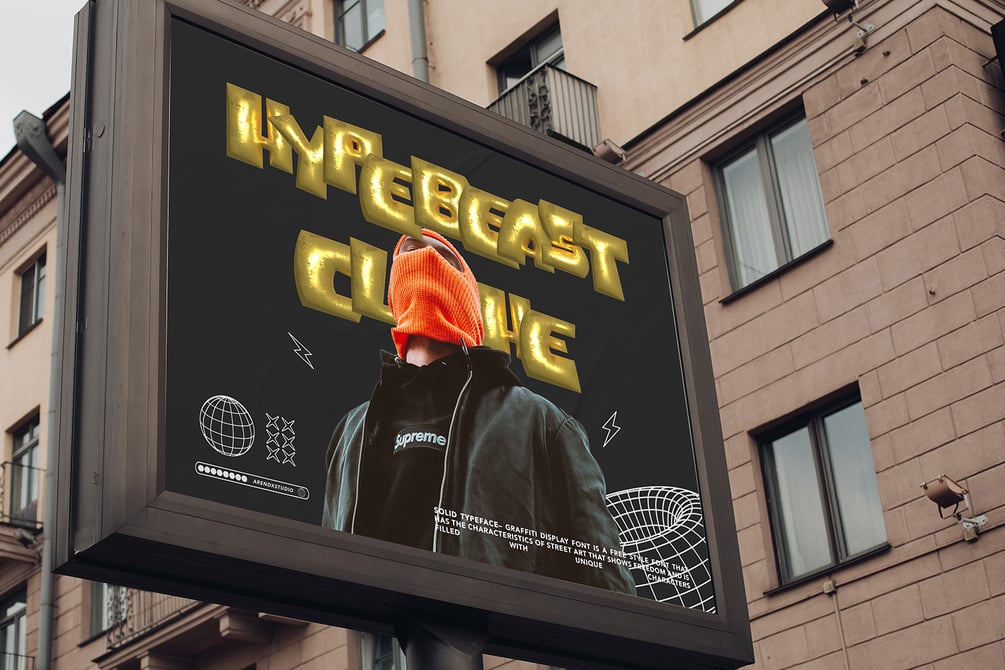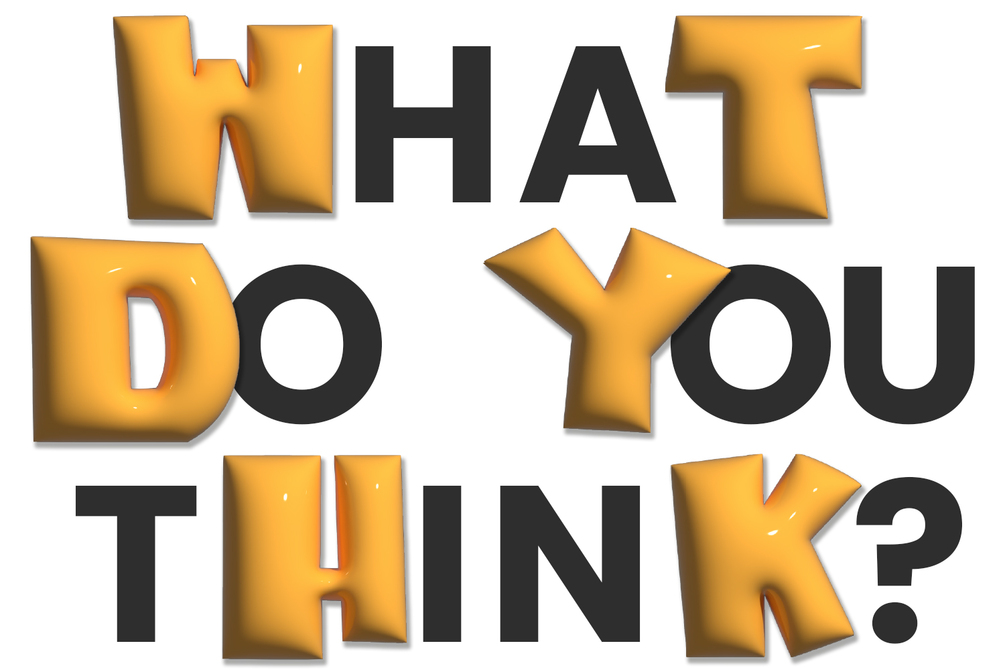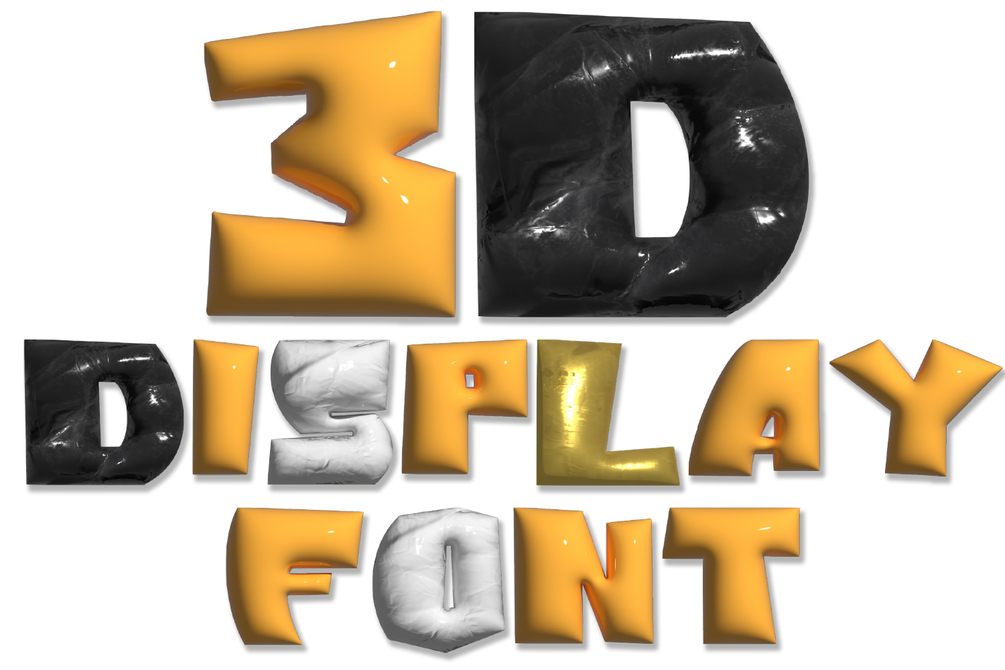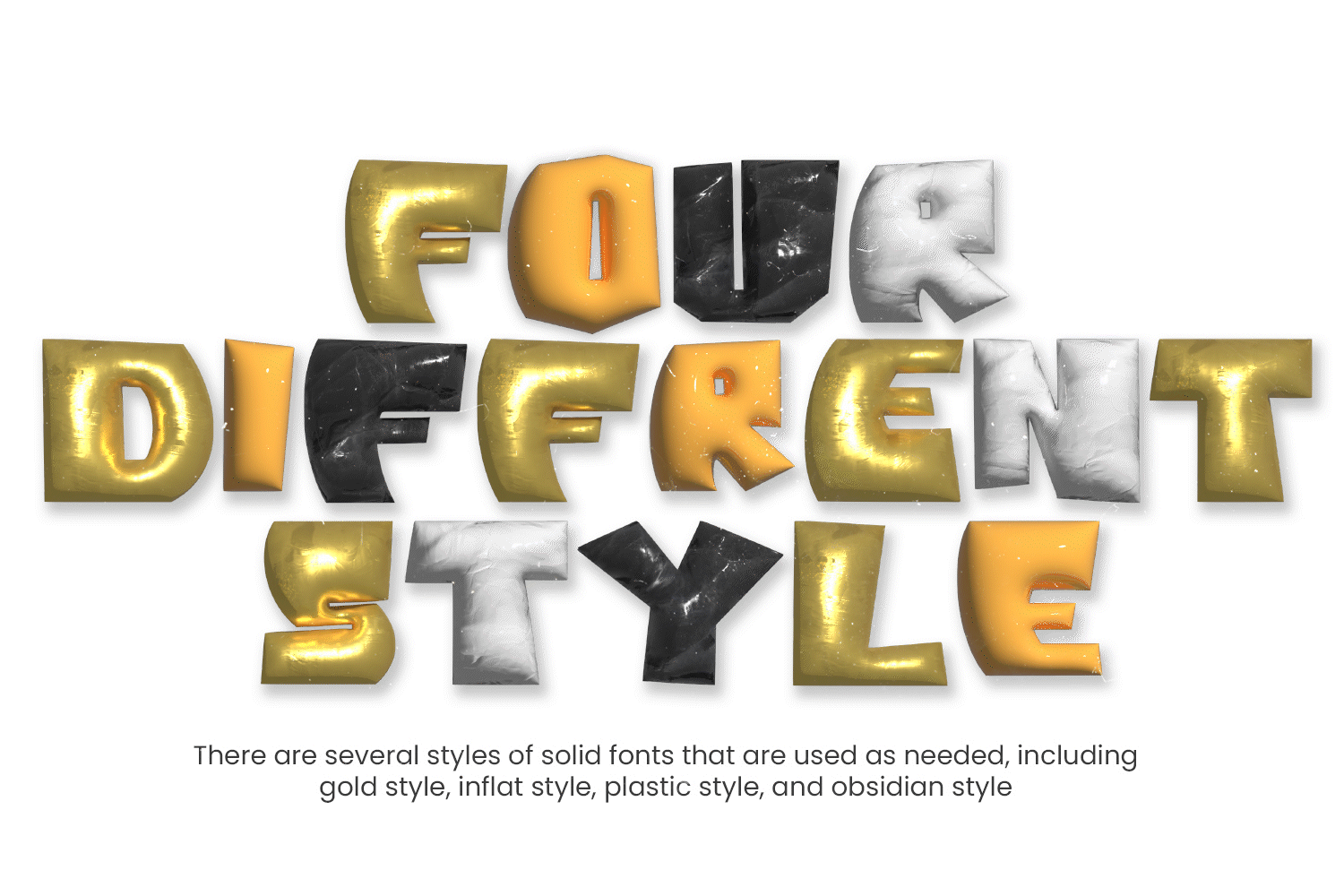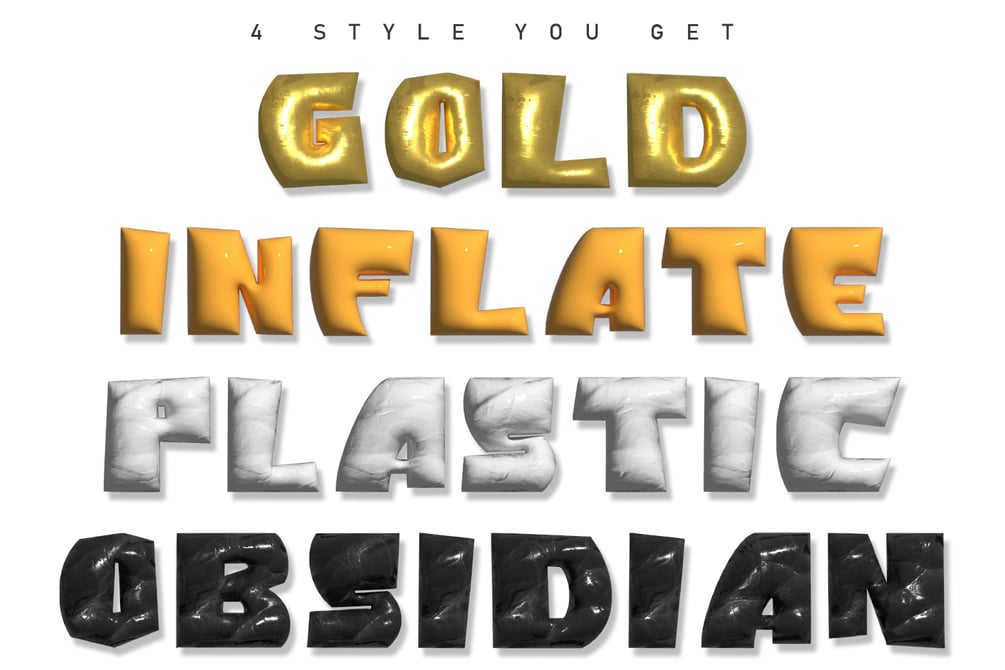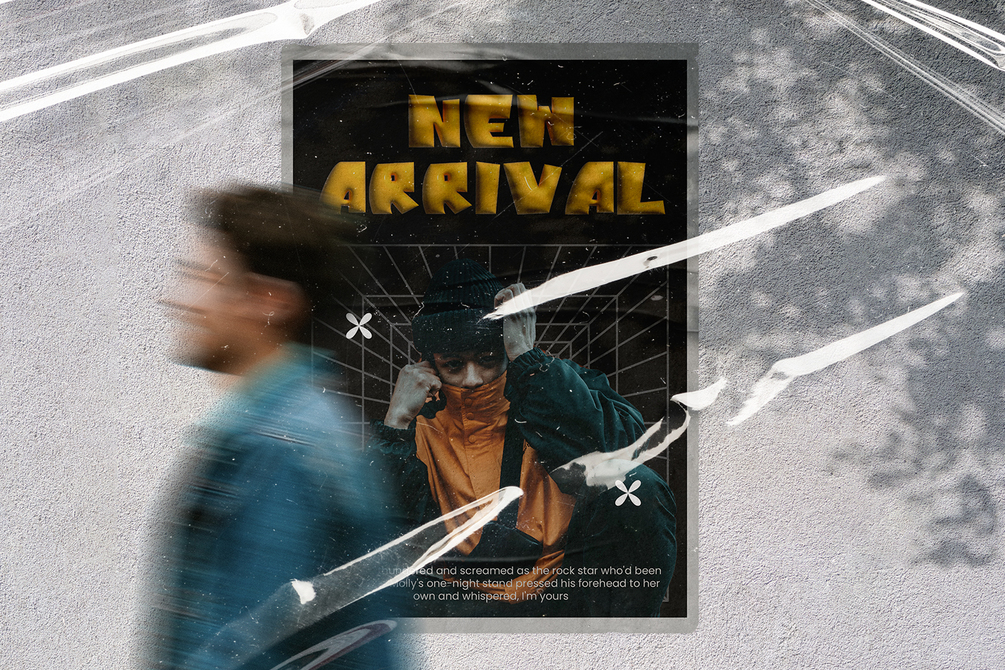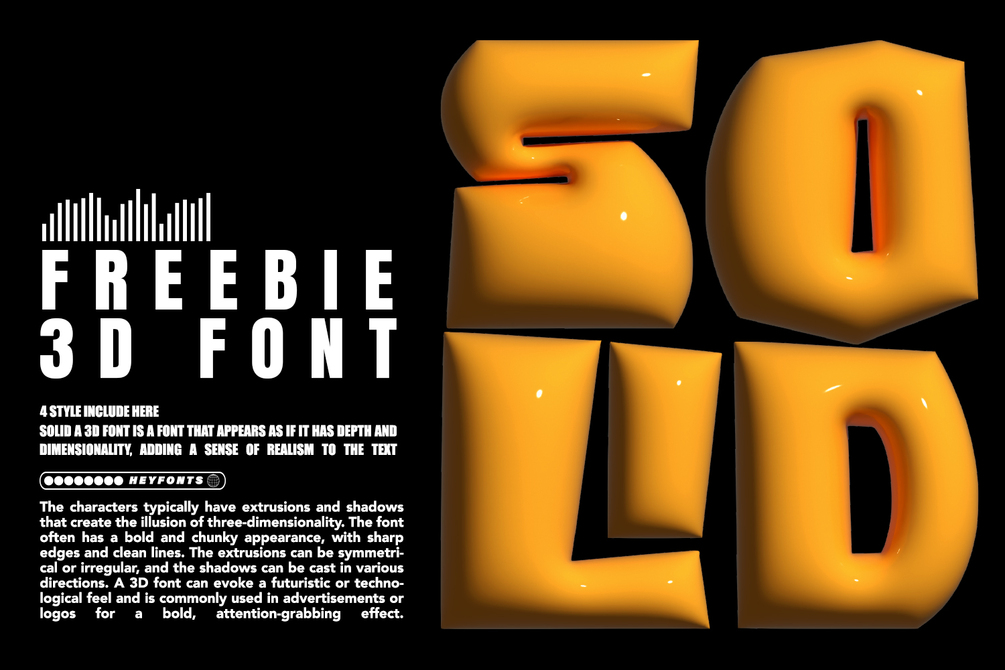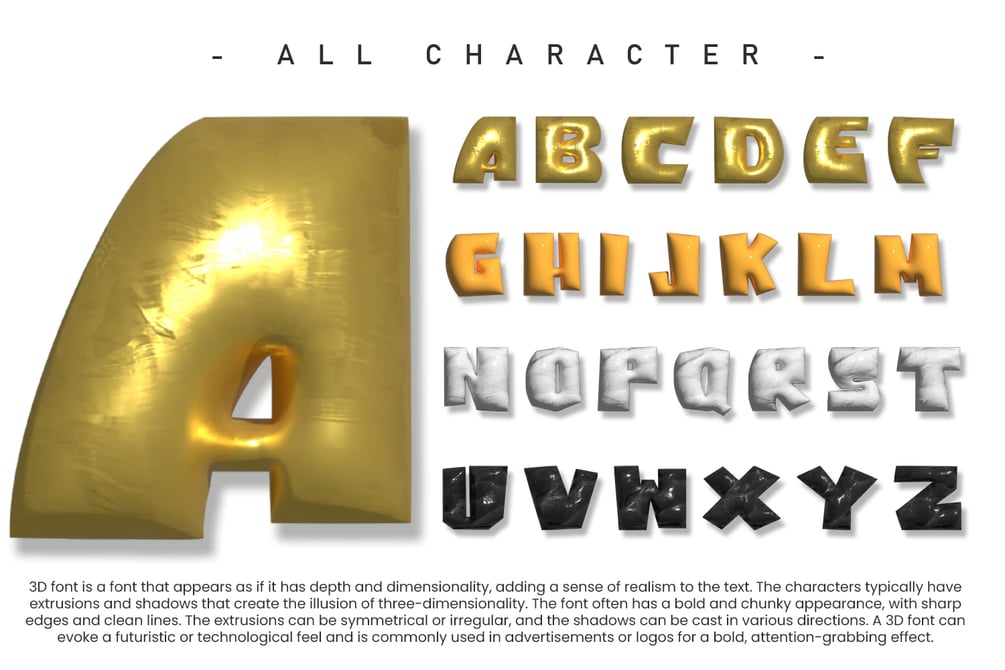
Solid - 3D SVG Font
Solid A 3D font is a font that appears as if it has depth and dimensionality, adding a sense of realism to the text. The characters typically have extrusions and shadows that create the illusion of three-dimensionality. The font often has a bold and chunky appearance, with sharp edges and clean lines. The extrusions can be symmetrical or irregular, and the shadows can be cast in various directions. A 3D font can evoke a futuristic or technological feel and is commonly used in advertisements or logos for a bold, attention-grabbing effect.